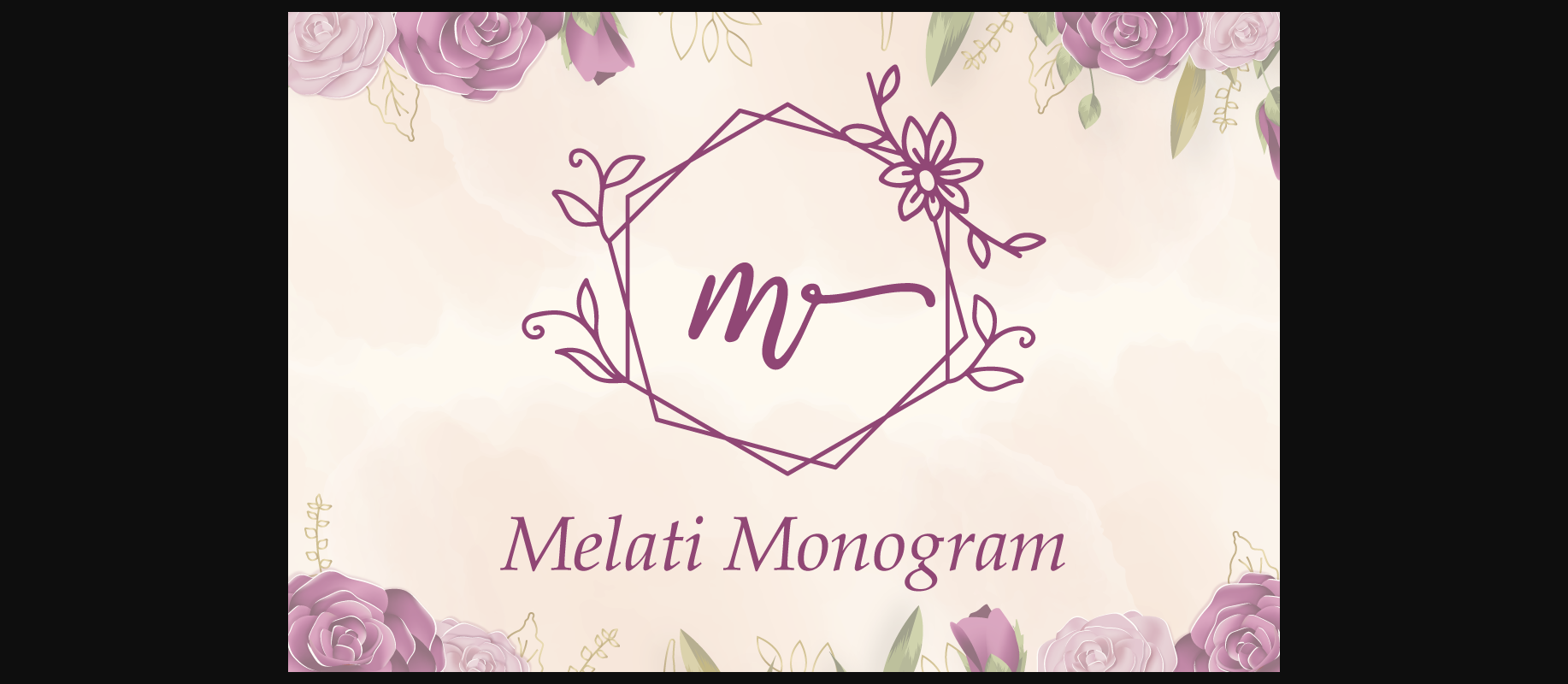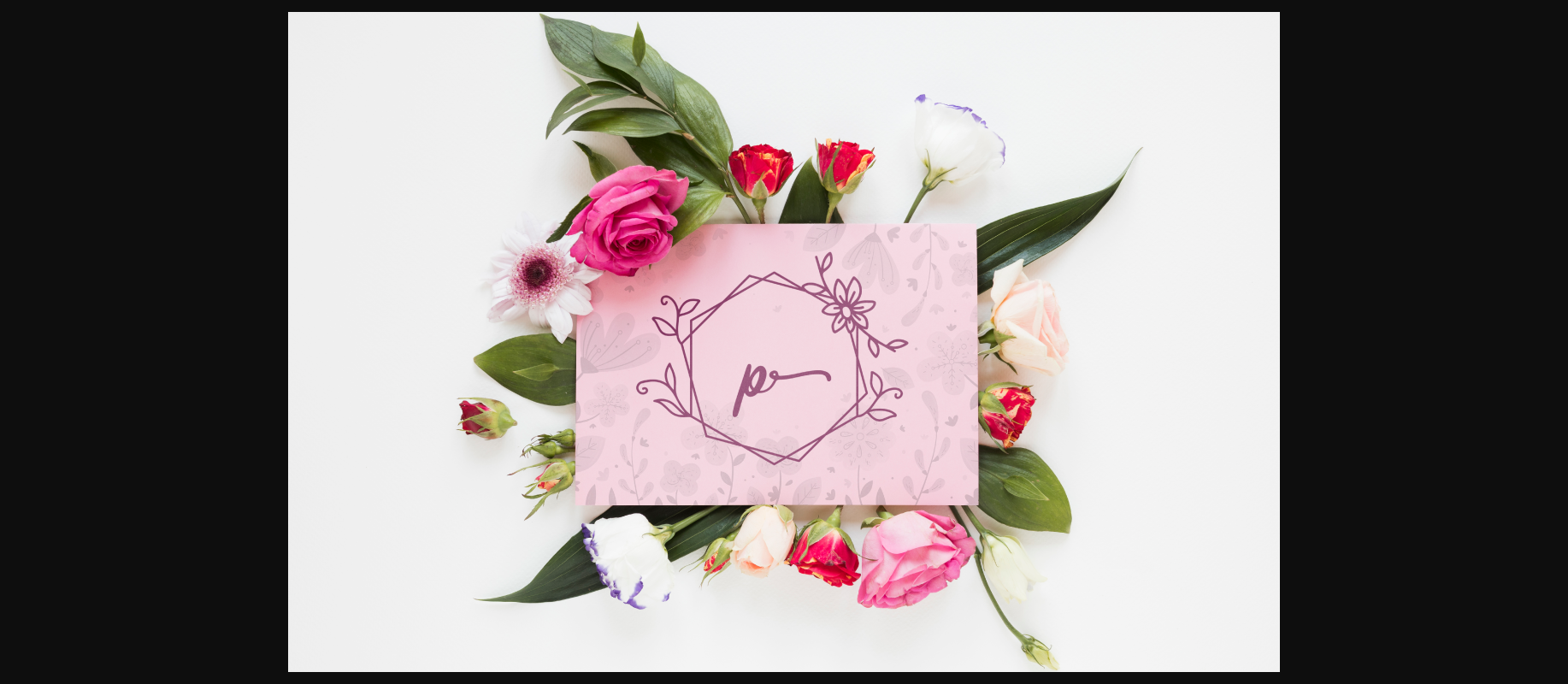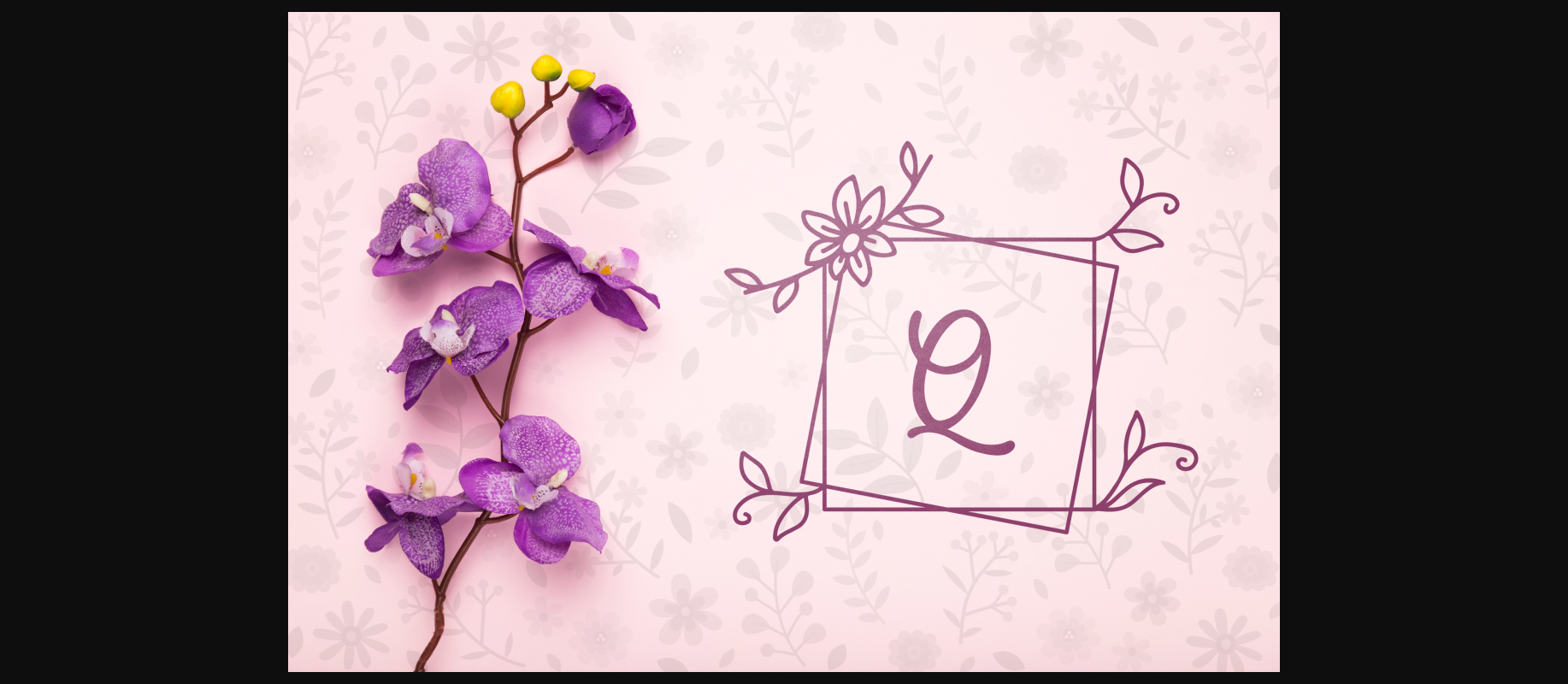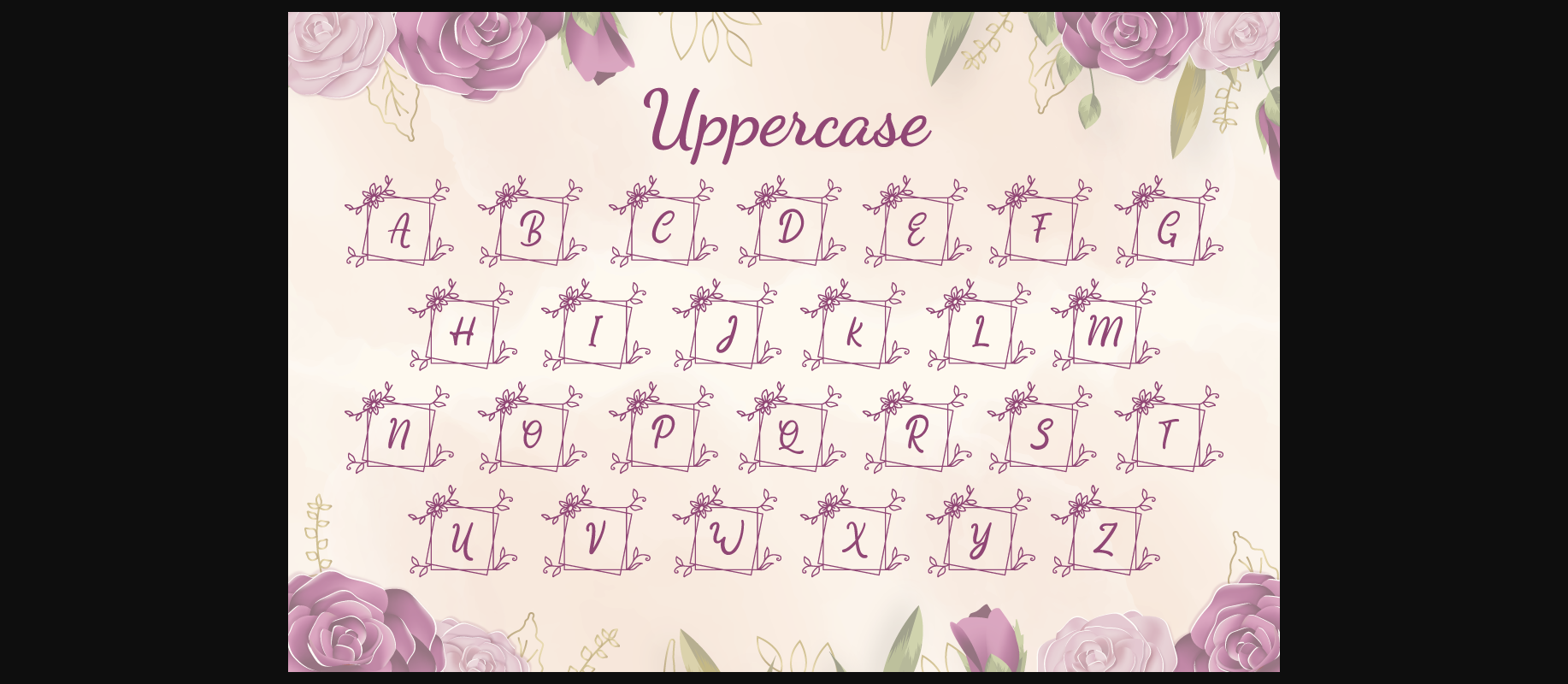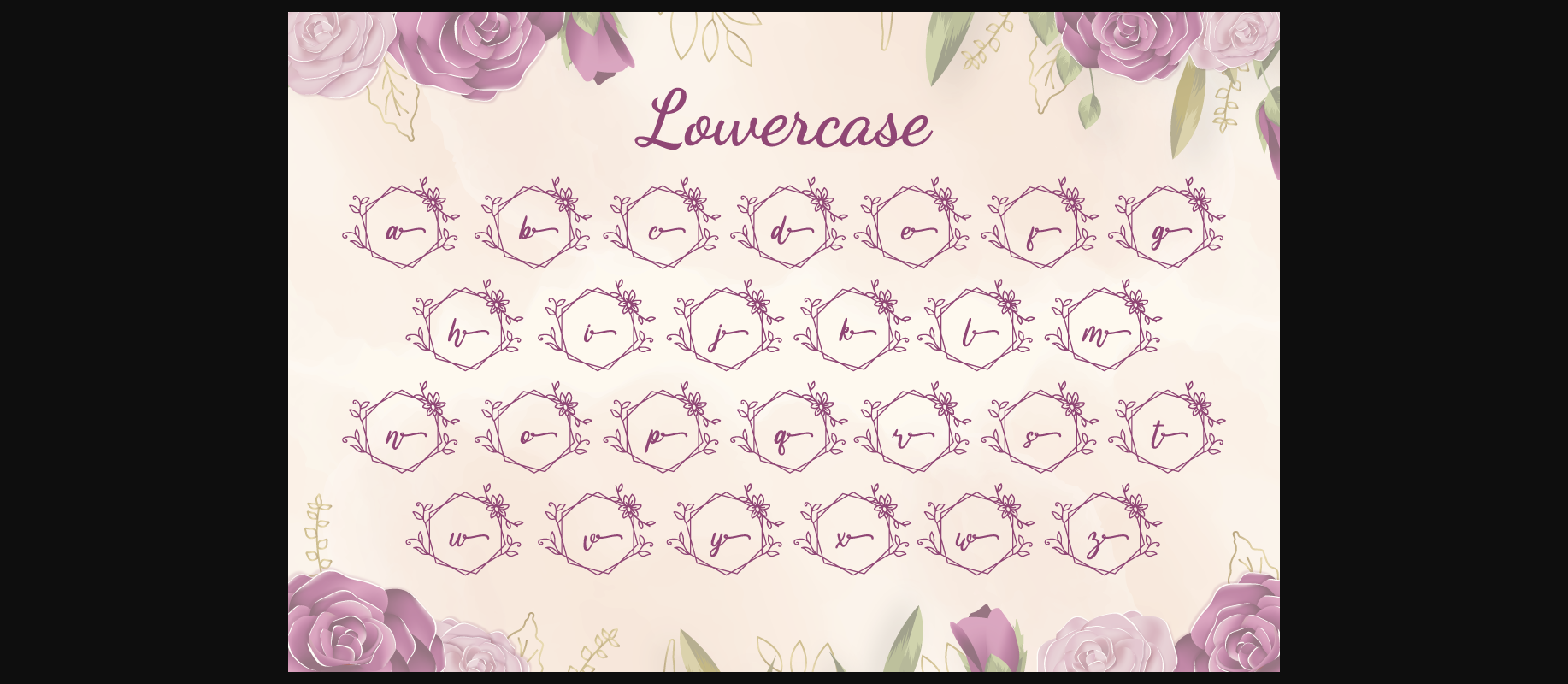
About Melati Monogram Font
Melati Monogram is flowery decorative font. Fall in love with this beautiful and lovely font and use it for your special occasions, business designs, logos, branding, social media posts, and wedding cards.